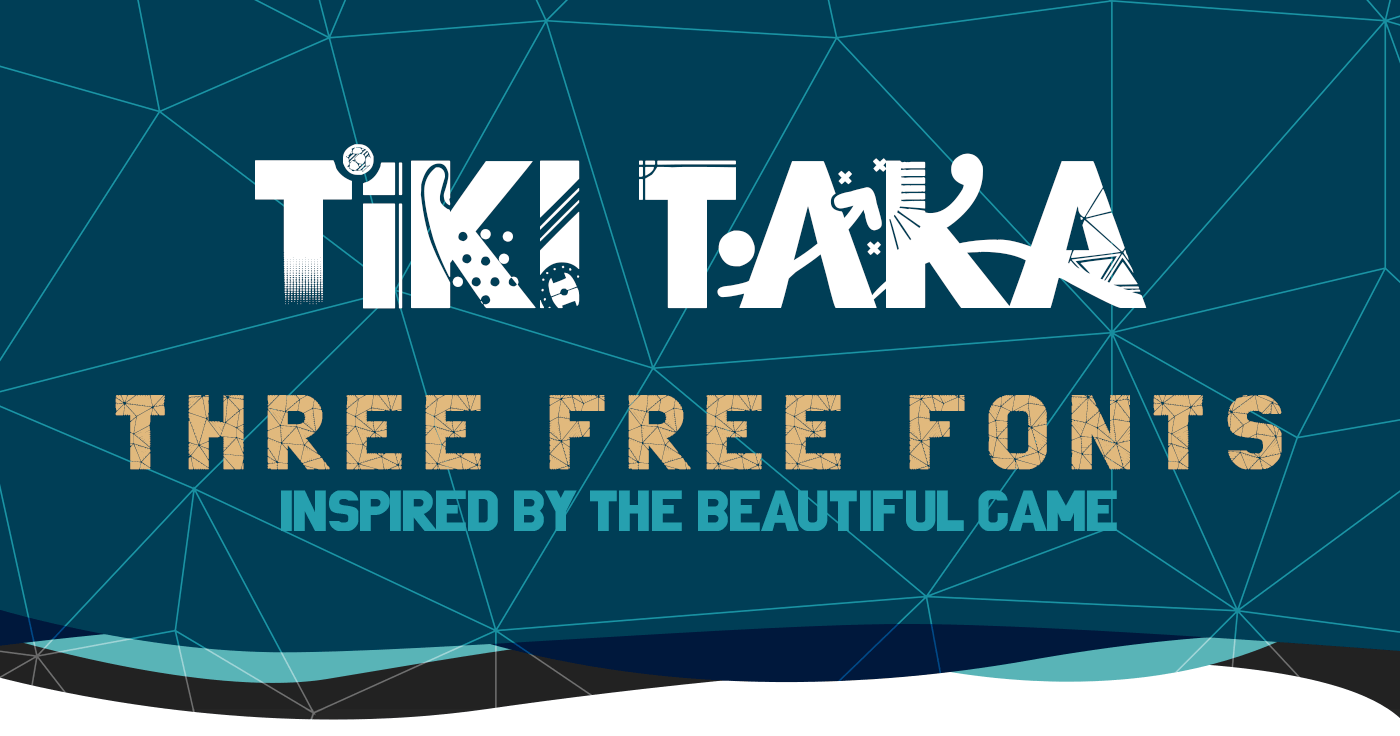
Tiki Taka free font
Tiki Taka free font family is made of three different fonts inspired on football. With a strong cool and original look, they are sans serif all in uppercase most suitable for titles, headlines, posters, logos, etc. Tiki Taka Mediocentro and Tiki Taka Trequartista are free for personal and commercial use. Tiki Taka Ramdeuter is free for personal use only.